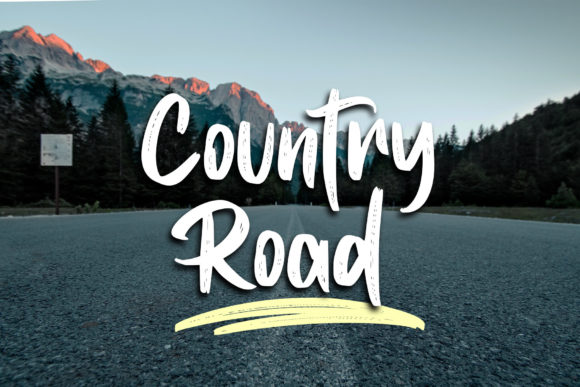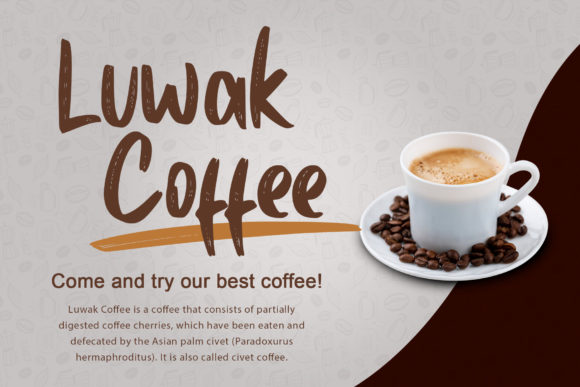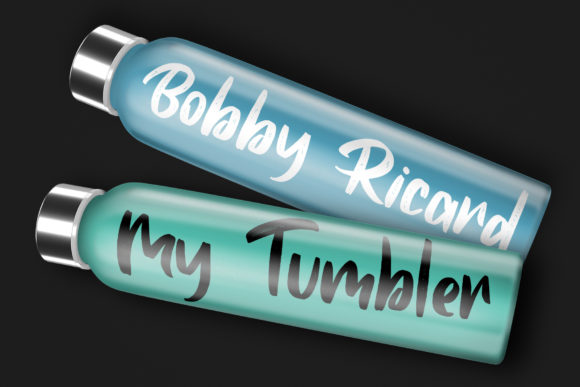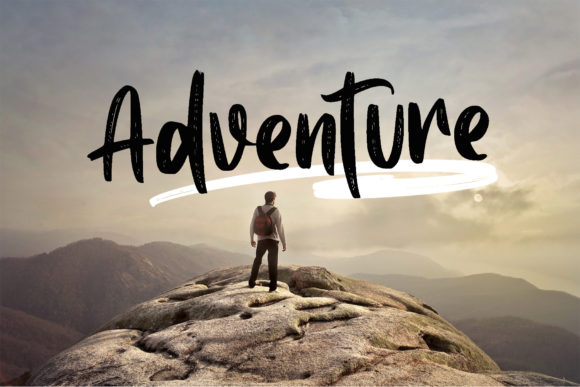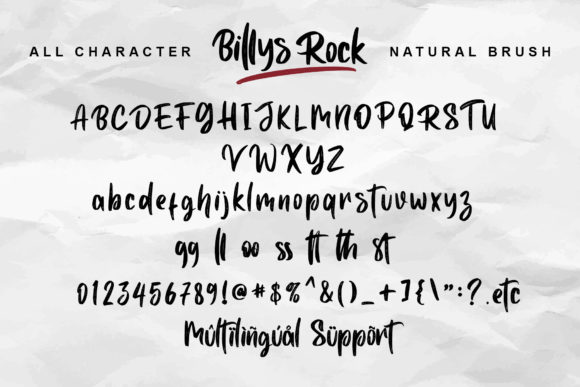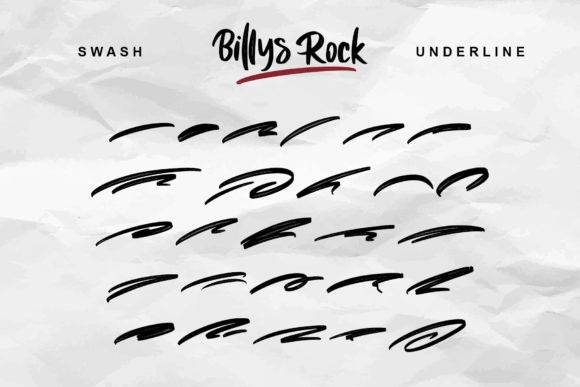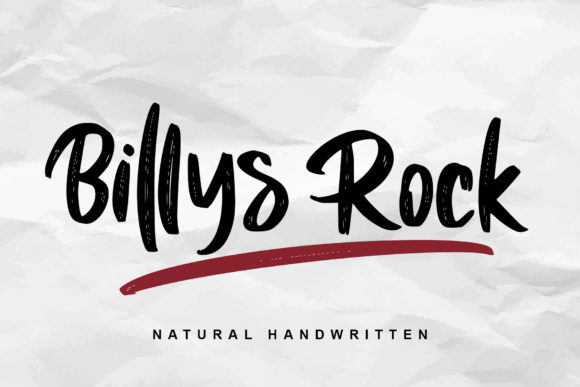
Billys Rock Font: Elevate Your Designs with Elegance and Class
Billys Rock is a stunning script font that embodies sophistication and refinement. Crafted with precision, this lovely font is perfect for designers and crafters seeking to add a touch of elegance to their creations. In this article, we’ll explore the features, benefits, and uses of Billys Rock Font, and why it’s an excellent addition to your typography collection.
The Beauty of Billys Rock Font
Billys Rock Font is a delicate script font that boasts a unique and refreshing aesthetic. Its elegant strokes and curves create a sense of fluidity, making it perfect for designs that require a touch of sophistication. The font’s intricate details and subtle nuances add depth and character, setting it apart from other script fonts.
Key Features of Billys Rock Font
- Elegant and Delicate: Billys Rock Font features a slender and refined design, ideal for creating sophisticated and eye-catching text.
- Script Style: This font boasts a beautiful script style, perfect for adding a touch of elegance to your designs.
- High-Quality: Billys Rock Font is crafted with precision, ensuring a high-quality output that will impress your audience.
- Versatile: This font is suitable for a wide range of design projects, from branding and advertising to packaging and digital media.
Benefits of Using Billys Rock Font
Billys Rock Font offers several benefits for designers and crafters, including:
- Enhanced Visual Appeal: This font adds a touch of elegance and sophistication to your designs, making them more visually appealing.
- Unique and Refreshing: Billys Rock Font’s distinctive style sets it apart from other fonts, ensuring your designs stand out from the crowd.
- Time-Saving: With Billys Rock Font, you can create stunning designs quickly and efficiently, saving you time and effort.
Uses of Billys Rock Font
Billys Rock Font is an incredibly versatile font that can be used in a wide range of design projects, including:
- Branding and Logo Design: Create stunning logos and brand identities with Billys Rock Font.
- Advertising and Marketing: Use this font to create eye-catching ads, brochures, and marketing materials.
- Packaging Design: Add a touch of elegance to your packaging designs with Billys Rock Font.
- Digital Media: Use this font to create engaging social media graphics, blog posts, and website content.
Tips for Using Billys Rock Font
To get the most out of Billys Rock Font, follow these tips:
- Pair with Complementary Fonts: Combine Billys Rock Font with complementary fonts to create visually appealing typography.
- Experiment with Colors: Try different color schemes to find the perfect combination that complements your design.
- Pay Attention to Spacing: Ensure adequate spacing between text elements to maintain a clean and elegant look.
Billys Rock Font is a beautiful and elegant script font that can elevate your designs to new heights. With its delicate strokes, unique style, and versatility, this font is perfect for designers and crafters seeking to add a touch of sophistication to their creations. Whether you’re working on branding, advertising, packaging, or digital media, Billys Rock Font is an excellent choice. So why wait? Download Billys Rock Font today and experience the power of elegant typography.